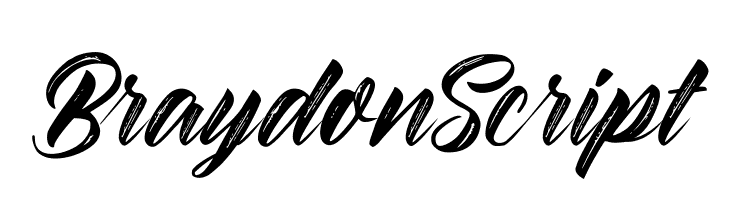
A dynamic, expressive handwritten font with fluid strokes and artistic flair.
A bold, brush-style font with sharp, angular strokes and a dynamic, hand-drawn aesthetic.
A dynamic, brush-textured font with sharp, angular strokes and a bold, artistic style.
A bold, handwritten font with a dynamic and energetic style.